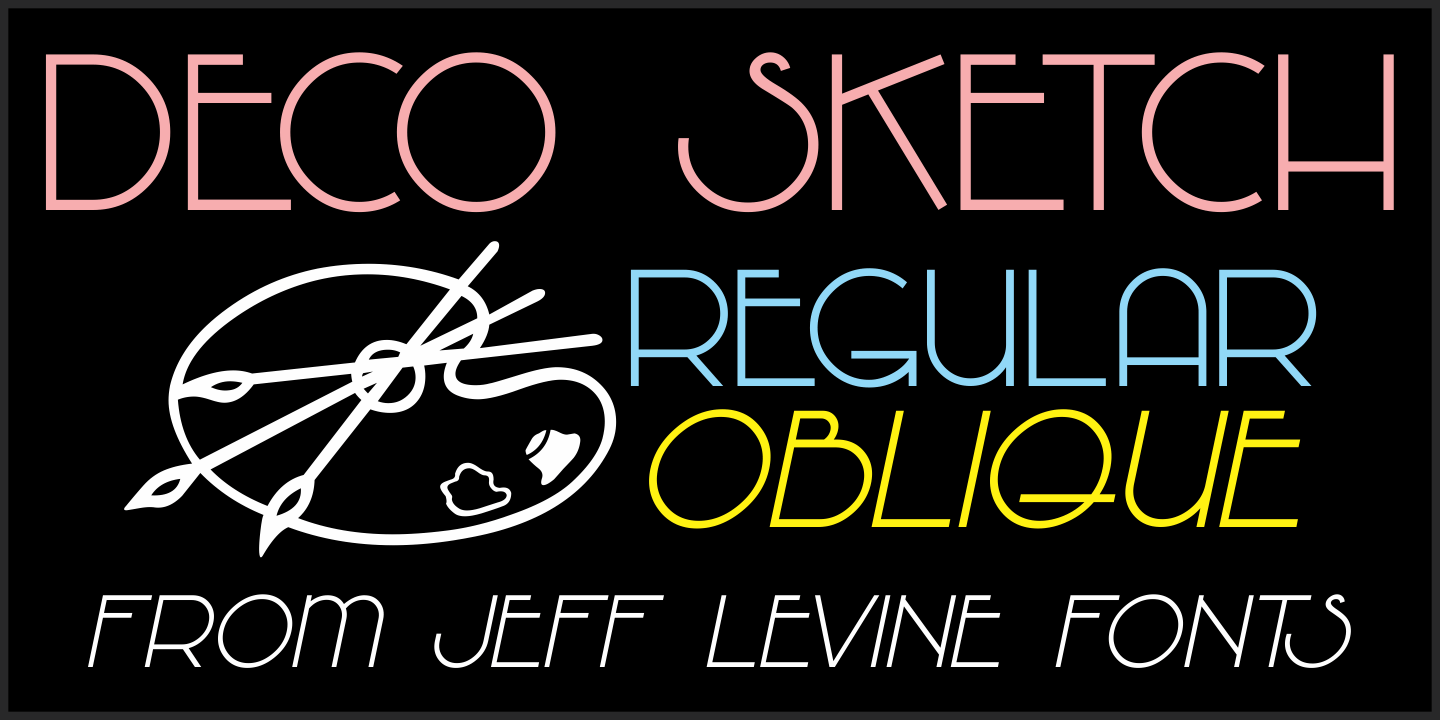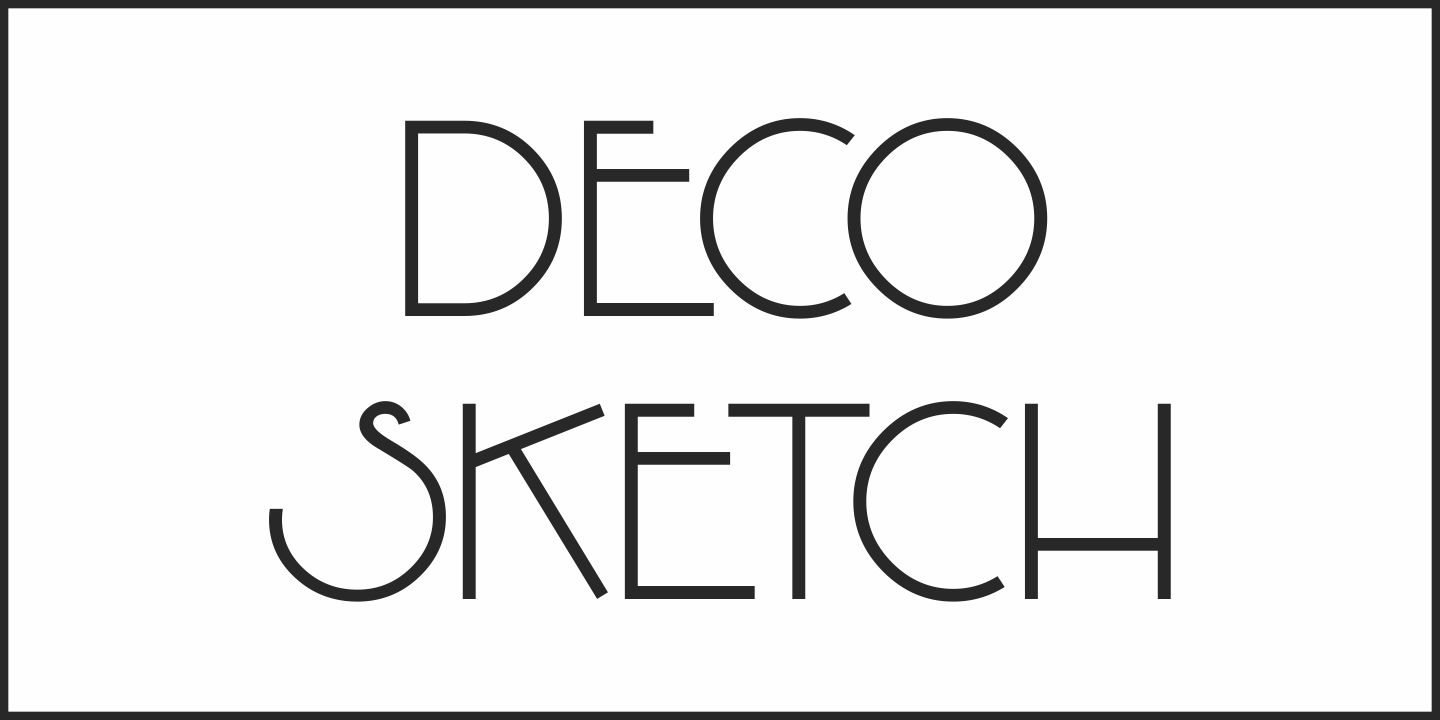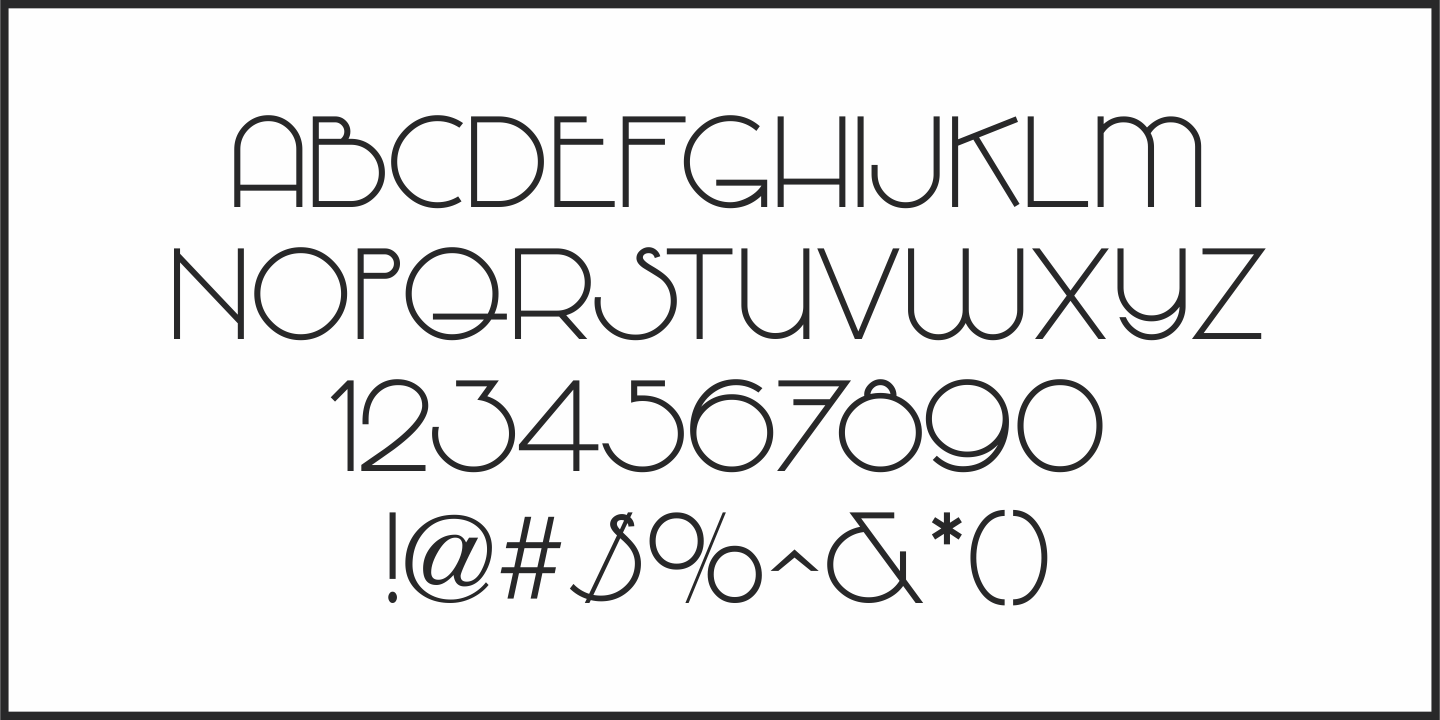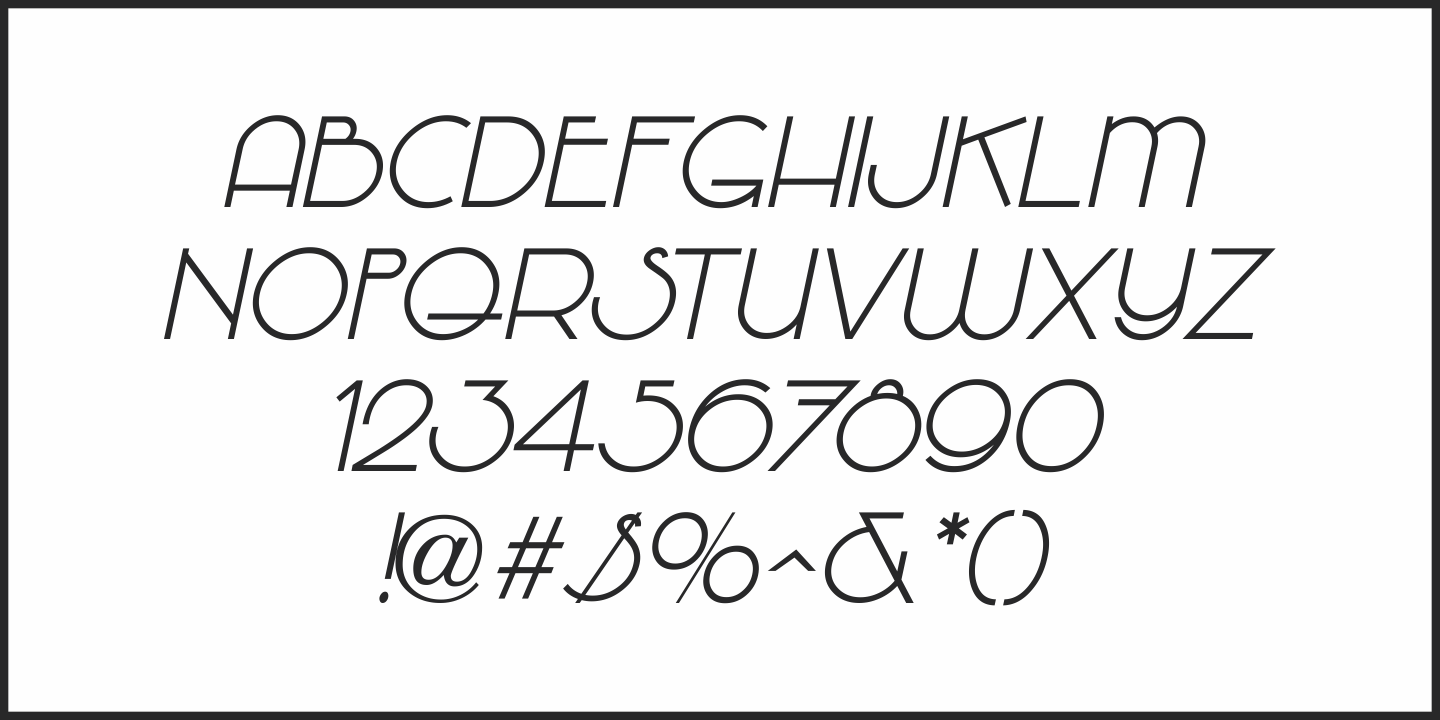
Deco Sketch
An interesting hand lettered example of Art Deco lettering (minus the letter 'L') was spotted on Pinterest and served as the inspiration for Deco Sketch JNL.
Because there was no attribution as to the age or source of the alphabet, it can only be surmised that it was a scan from a 1930s or 1940s source.
The original showed many of the irregularities of pen lettering, and had rounded terminals. The digital version has been redrawn more uniformly with flat terminals.
Deco Sketch JNL is available in both regular and oblique versions.